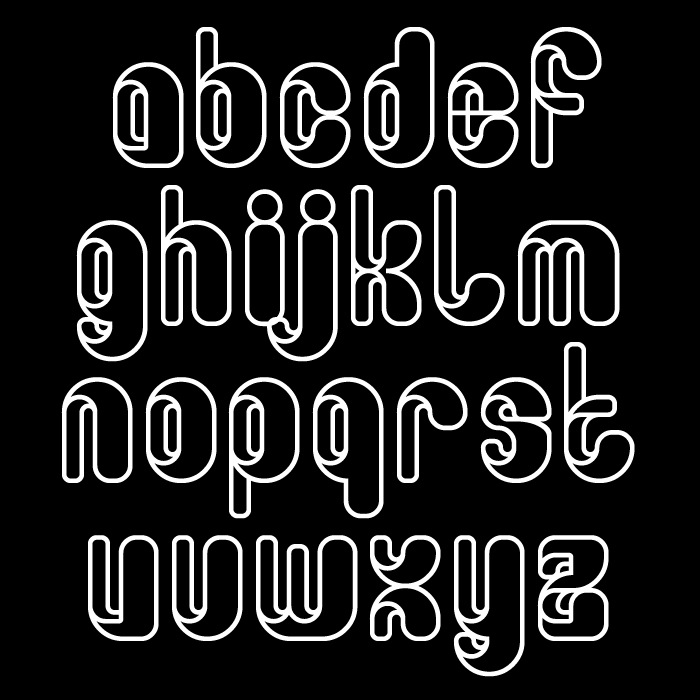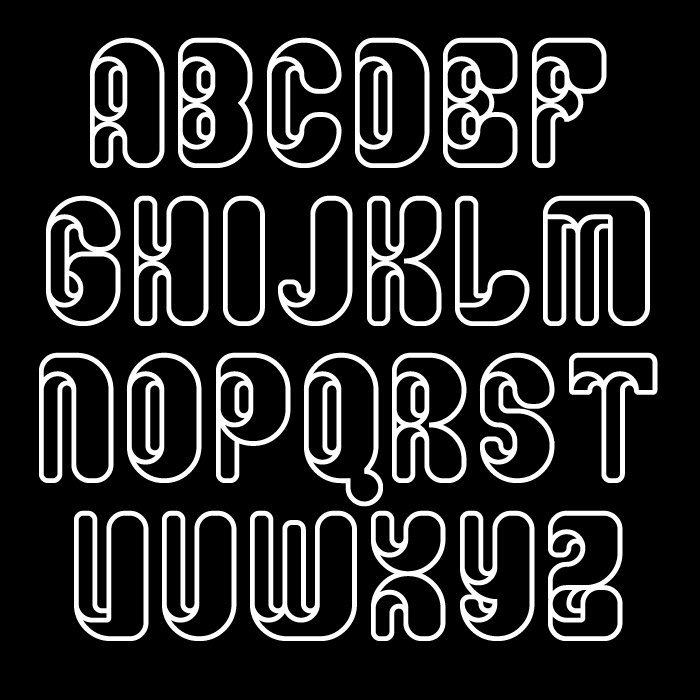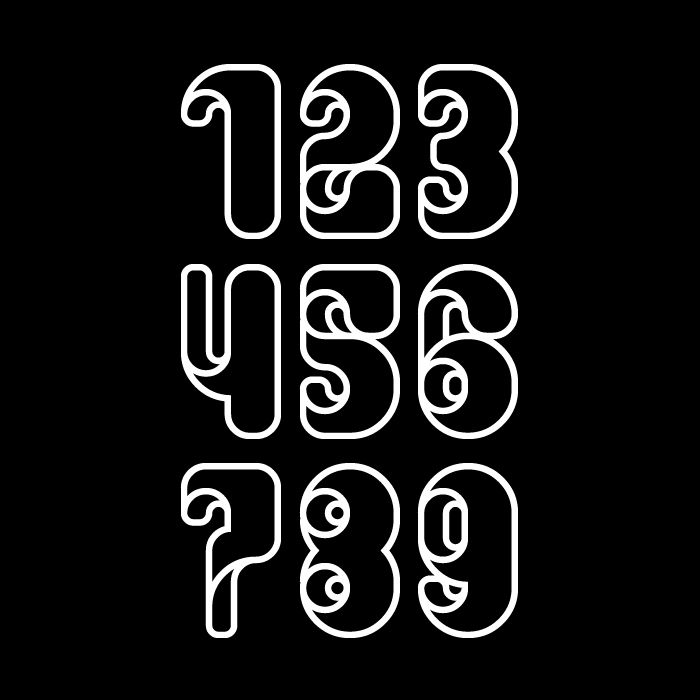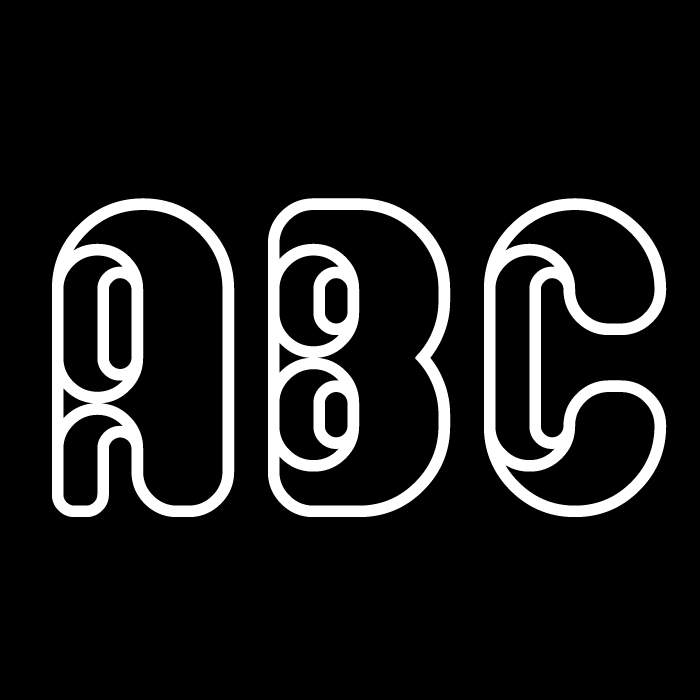
Nice, really creative!
Holy moly.. stunning 3D effect.
@four - The use of combined curves results in quite a wonderful effect; congratulations on this creation!
Some of the characters have some sharp corners that stand out a bit; would this work better?
Also uppercase N has a stray brick I see. ;-)
Correction, uppercase M it seems.
Thanks for the suggestion @Yautja, I have changed those characters. Still not 100% happy with T...
Really cool! It has a nice 3D effect.
WOW. This is NEXT LEVEL stuff. Amazing. 10/10
Surprising and involving 3D effect! A new concept, impeccable. Congrats!
So excellent!
Holy shit that's very impressive!!
how did you make this? it's amazing!